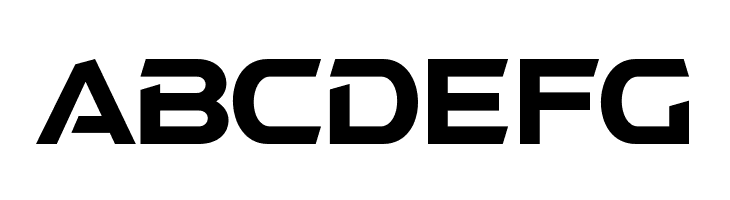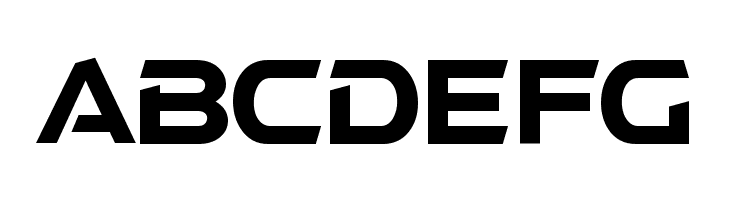
Atmospheric Font
A bold, futuristic font with geometric shapes and sharp angles.
Atmospheric Font
A bold, futuristic font with sharp angles and a geometric design.